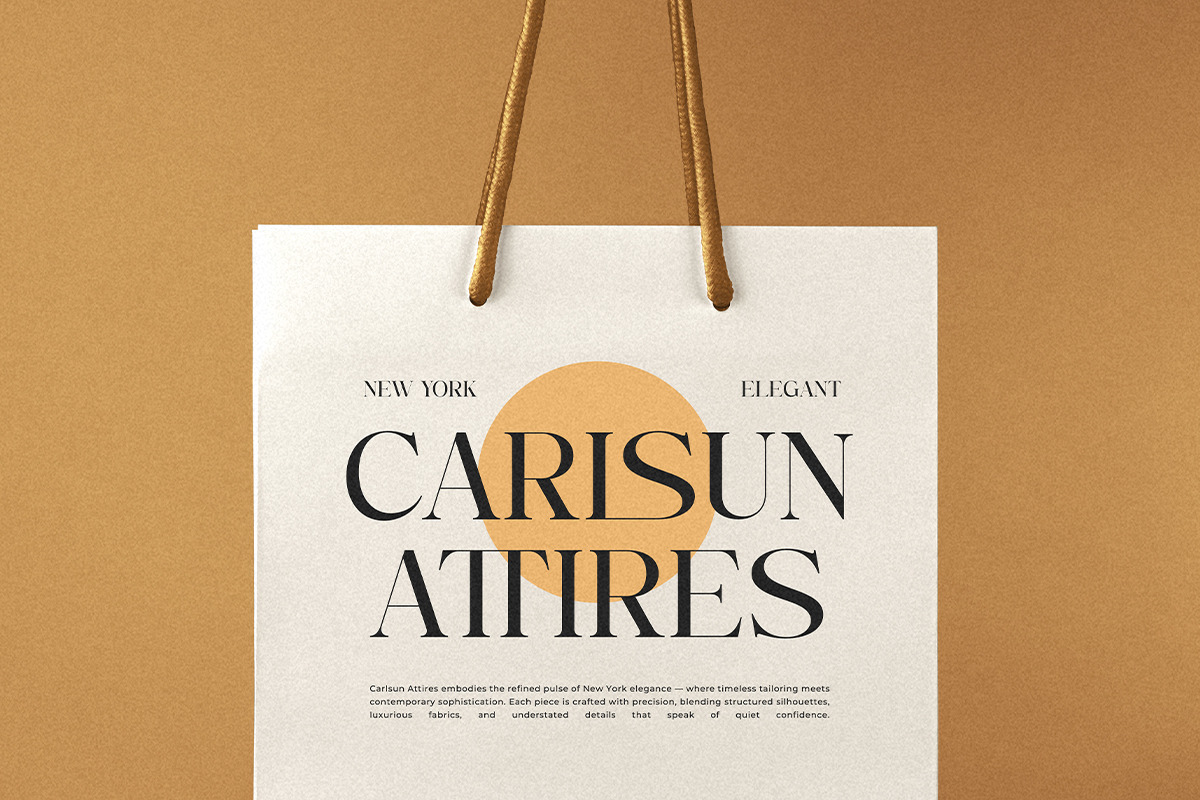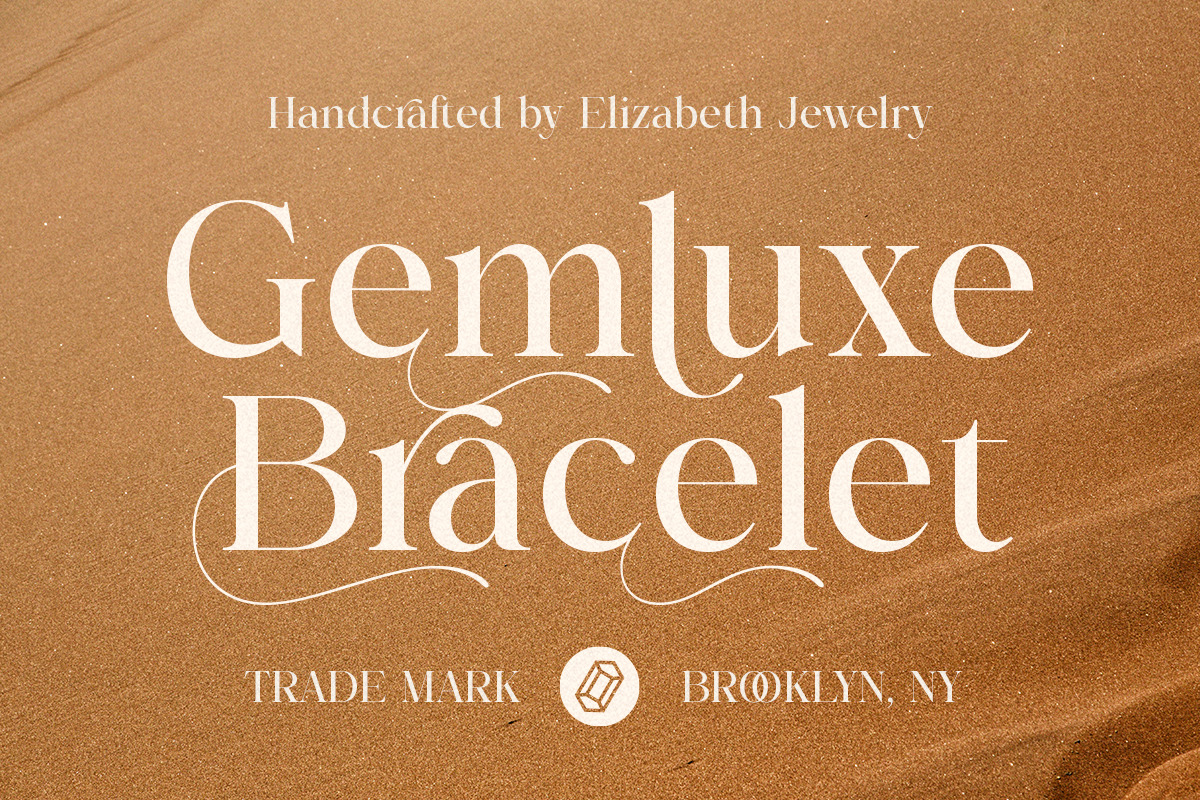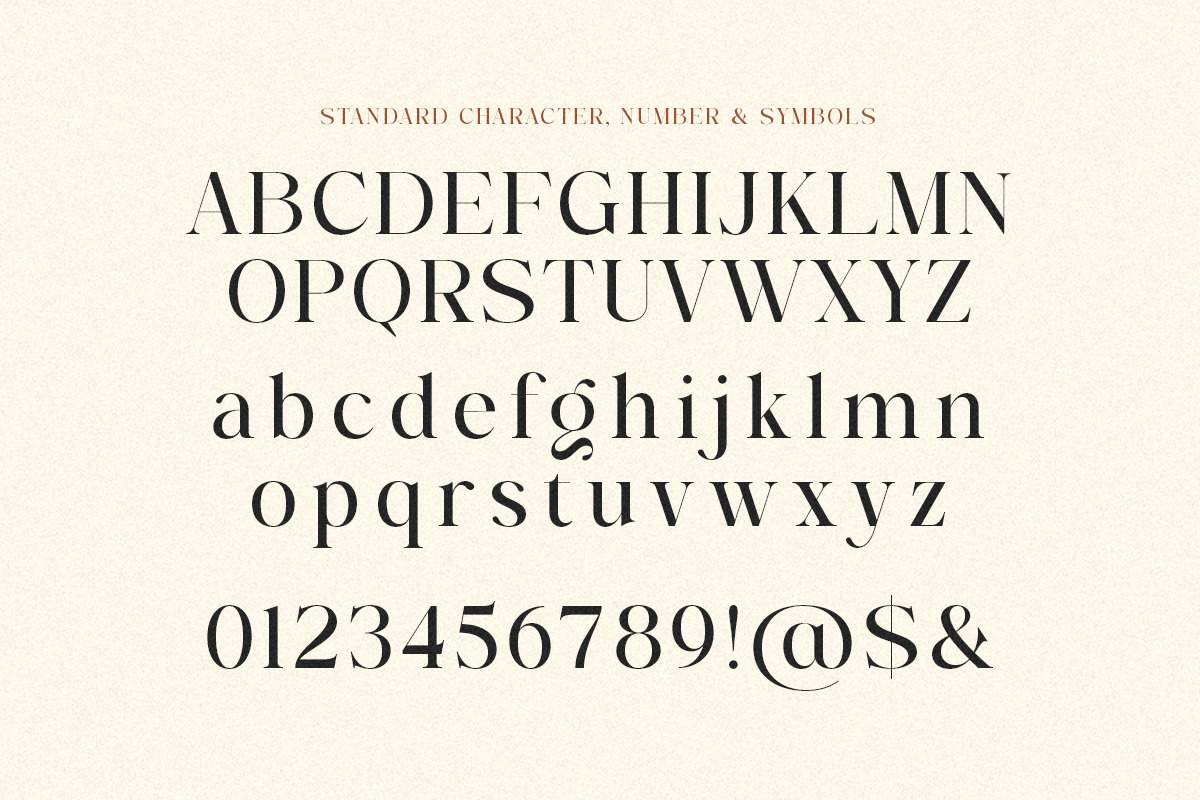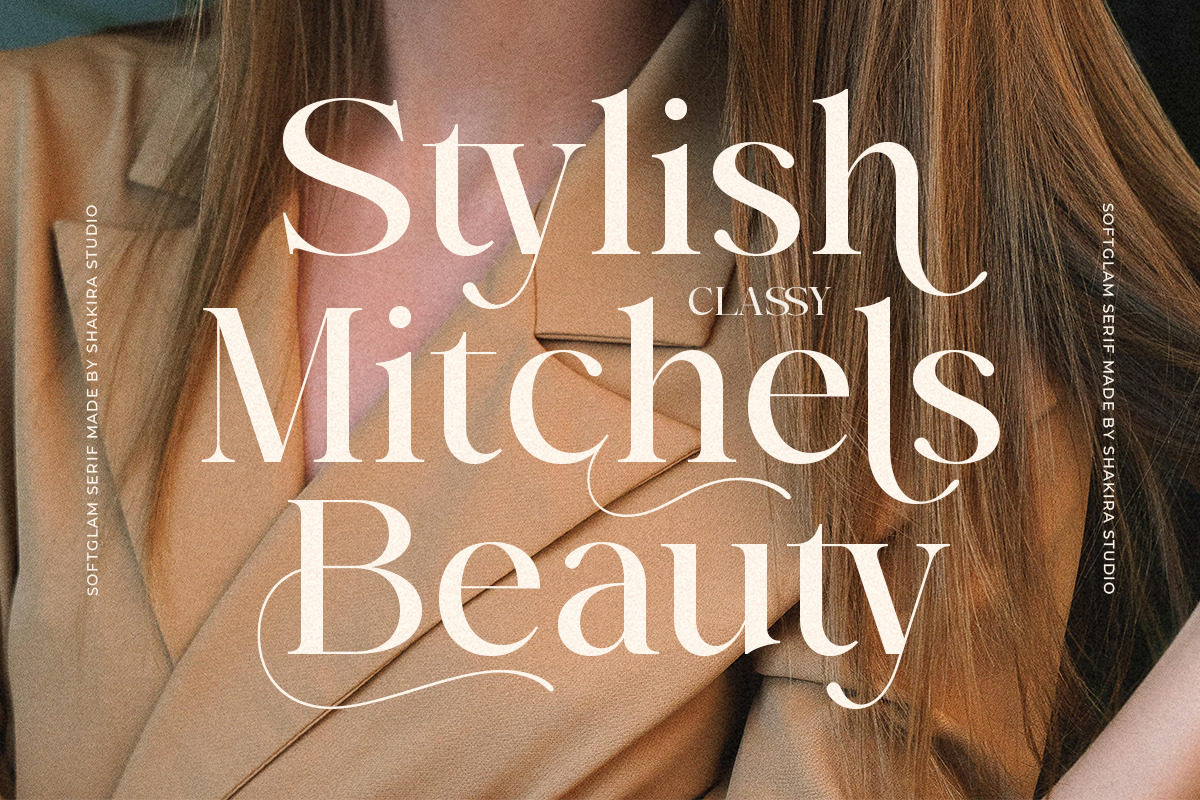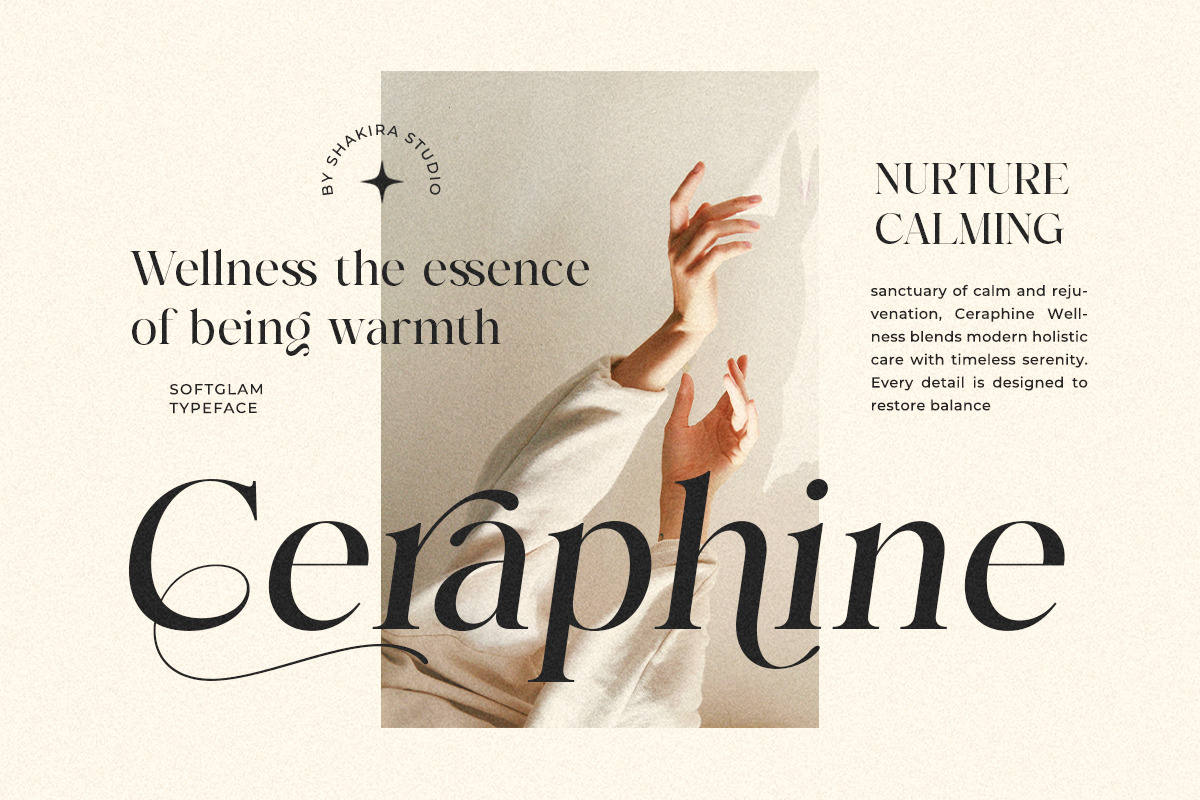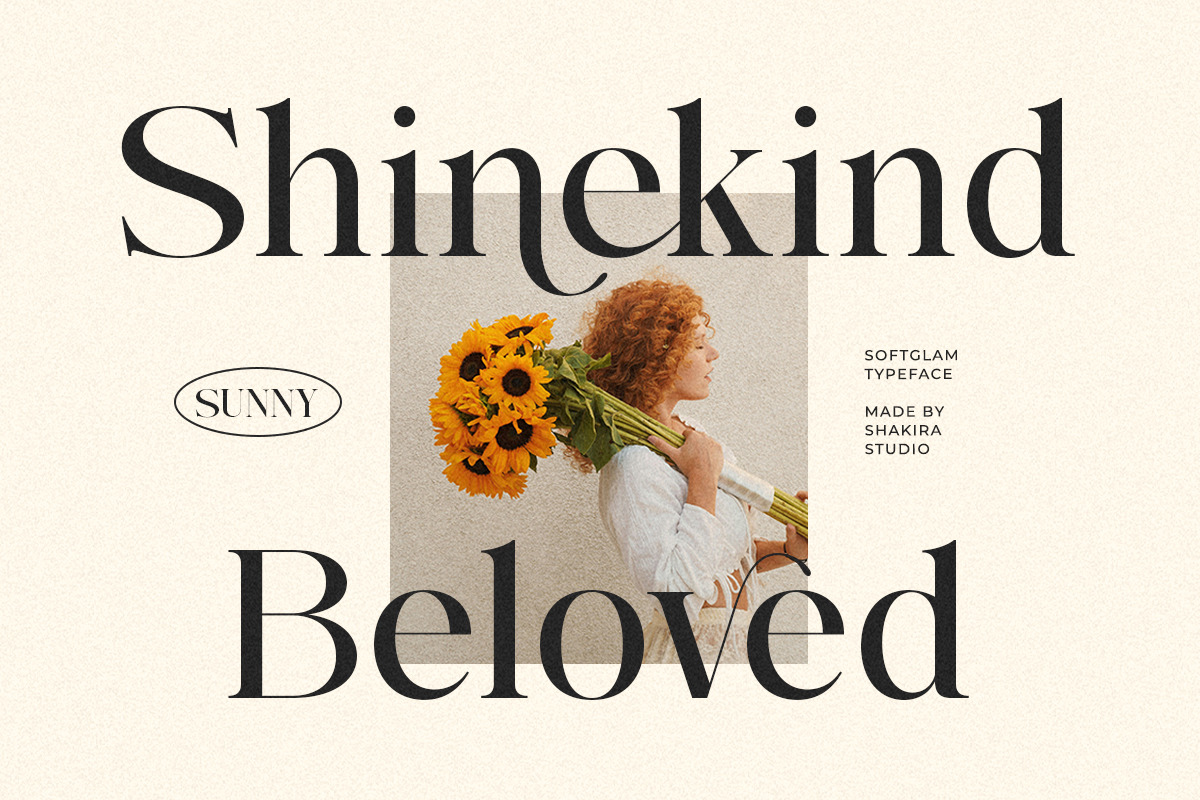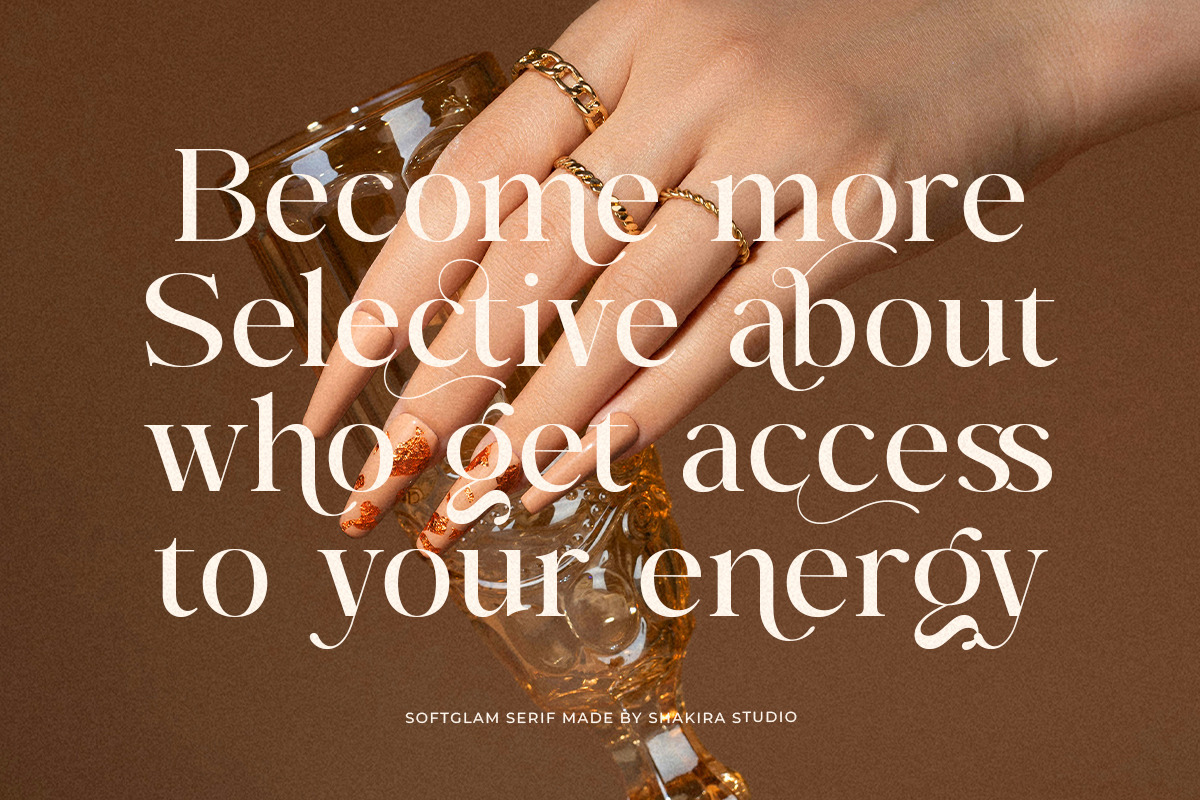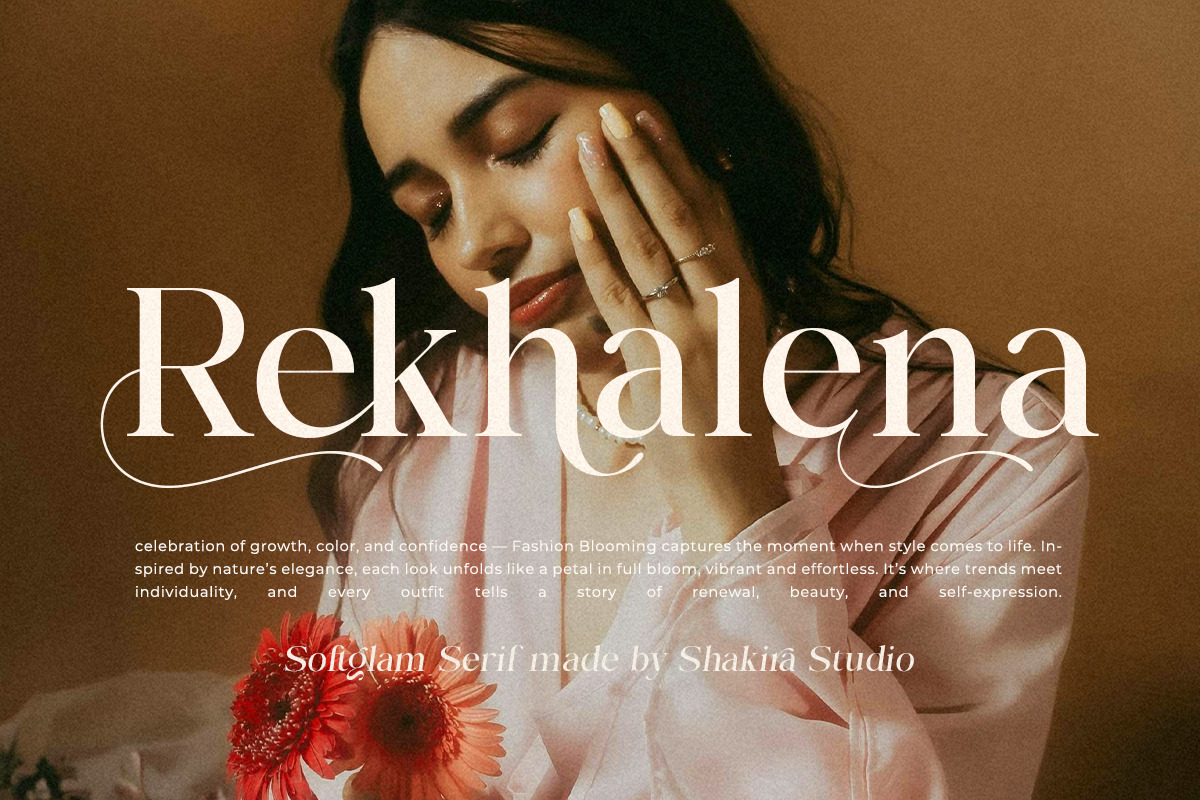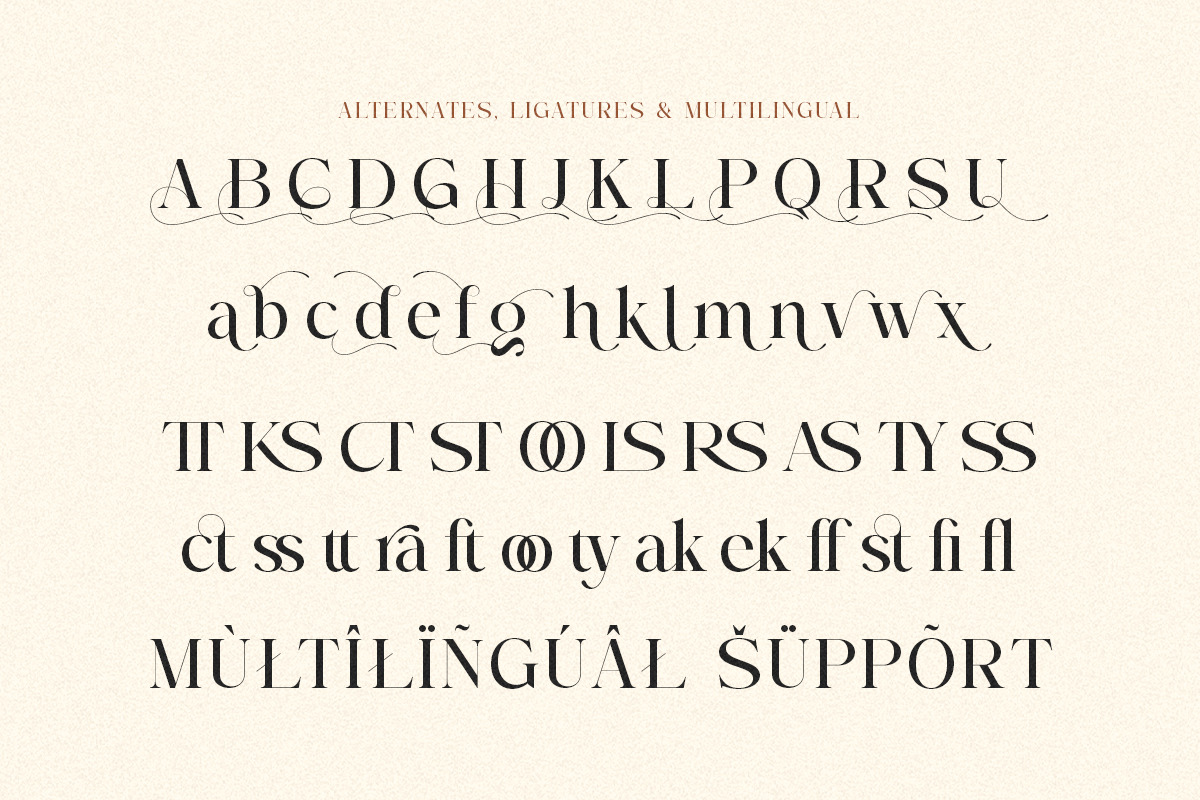
Elegant Luxury Serif - Softglam
Meet Softglam, a modern serif designed for refined elegance.
Its smooth curves and subtle contrast create a sophisticated look that feels both feminine and powerful. Perfect for jewelry branding, cosmetic packaging, boutique logos, and stylish editorial layouts.
Softglam brings warmth and luxury into every letterform.
- Regular & Italic
- Alternates & ligatures